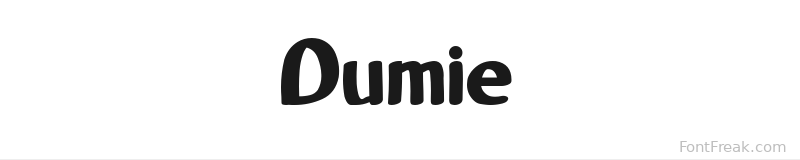
Dumie
About Dumie
The Dumie font, created by Kong Font, is a unique display typeface that combines playful elegance with modern design. This sans-serif font stands out due to its clean lines and rounded edges, which contribute to a friendly and approachable aesthetic. With a medium stroke weight and minimal contrast, Dumie offers excellent legibility, making it a versatile choice for various applications. The spacing is thoughtfully designed to ensure readability while maintaining a contemporary look.
Dumie is particularly well-suited for specific use cases such as wedding invitations, where its charming design can convey warmth and celebration. It also works beautifully on restaurant menus, providing a stylish yet legible option for displaying dish names and descriptions. Additionally, graphic designers can utilize Dumie in branding projects, as its modern appeal aligns well with current design trends. Content creators looking to enhance their websites or social media posts will find this font adds a distinctive touch that captures attention without overwhelming the viewer.
What sets the Dumie font apart is its ability to blend simplicity with character, making it a standout choice for anyone looking to inject personality into their designs. Its versatility across various mediums and contexts ensures that it can adapt to different styles and themes, making the Dumie font free download an excellent addition to any designer's toolkit.